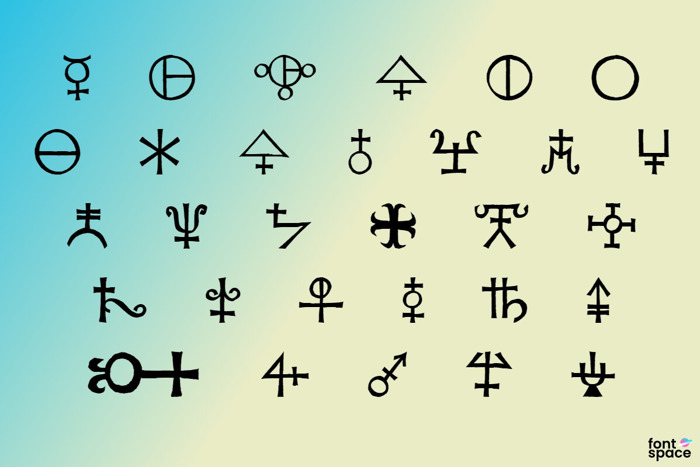
Agathodaimon Font
What is this, a font?
Agathodaimon (A gath o die mon), named after a mediaeval alchemist, is a TrueType font for the IBM (also available in Macintosh TrueType and Type 3 formats). Unlike the plethora of dingbat fonts, which display multi-permutations of floral arrangements, Agathodaimon boasts an entire upper and lowercase alphabet made from mediaeval chemical symbols (52 bold, yet simple designs). I have based the characters themselves on the calligraphy and work of Rudolf Koch, professor and key figure in the development of graphic arts in Germany circa 1930.
The symbols are authentic and have been used from ancient times up to the middle ages. I have tried to make the figures appear to be woodcuts-especially the black-boxed versions. They are unique, meticulously crafted, and, best of all, a design element that is in most cases around two millennia old. It is unfortunate, I suppose, that these symbols have been lost or have faded in their use-almost certainly, no one who sees these symbols will recognize any of them (except "b," which is similar to the astrological symbol for Mars). Regardless of their emblematic nature, however, they are pretty darn cool. Oh yes, and they are useful too: put them on envelopes, on letterhead, to make borders, in roleplaying games, in logo design, or even use them in professional desktop publishing.
Each upper and lowercase letter of the alphabet is a different mediaeval chemical symbol. Because there is so much detail in these drawings, they don't really look that fantastic on the screen until about 15 point (and even then, they aren't the clearest), but they print nicely from 8 to 200 points on a LaserWriter Select (600 DPI). 8 points is rather small, however.
LARGE CAPS:
A The metals
B Vitriol
C Huile d'Vitrol
D The combustible elements
E Saltpeter
F Alum
G Salt
H Sal Ammoniac
I Sulphur
J Antimony
K Alum
L Alum
M Potash
N Amalgam
O Antimony
P White Lead
Q White Lead
R Lead
S Olive Oil
T Arsenic
U Arsenic
V Bolus
W Hematite
X Anglesite
Y Iron
Z Alcohol (Ethyl)
small caps:
a Borax
b Copiapite
c Essential Oil
d Vinegar
e Glass
f Talc
g Subacetate Of Copper
h S. Of Copper Crystals
i Urine
j Metal Lime
k Metal Lime
l Lime
m Copper Saffron
n Iron Vitriol
o Azurite, Lapis Lazuli
p Alkali
q Lye
r Minium
s Orpiment
t Precipitate
u Aquafortis
v Brimstone
w Steel
x Sublimate
y White arsenic
z Wax